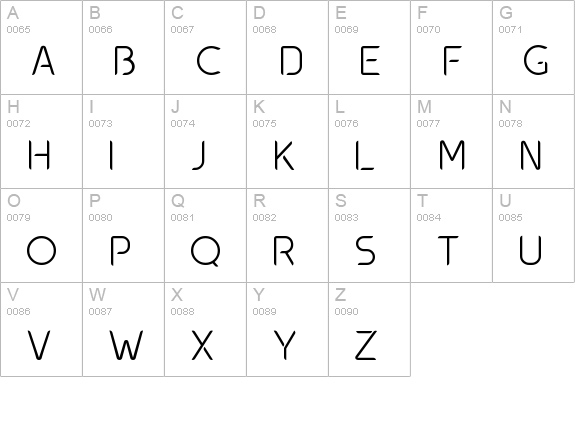
oxo-light is a refined, elegant variant in the oxo typeface family \xE2\x80\x94 well suited to elegant body text, refined sub-headings, and luxury branding.
Oxo-Light font is a modern and elegant typeface that exudes sophistication and style. Its sleek lines and minimalist design make it perfect for a variety of projects, from branding to editorial design. The clean and simple aesthetic of Oxo-Light font adds a touch of class to any text, making it a versatile choice for both print and digital applications. The best part? Oxo-Light font is available for free download at FontsMarket.com. This means you can easily access this high-quality font without breaking the bank. Whether you're a designer looking to enhance your projects or a business owner in need of a professional font for your marketing materials, Oxo-Light font is the perfect solution. Don't miss out on this opportunity to elevate your designs with Oxo-Light font. Download it for free today and see the difference it can make in your projects.